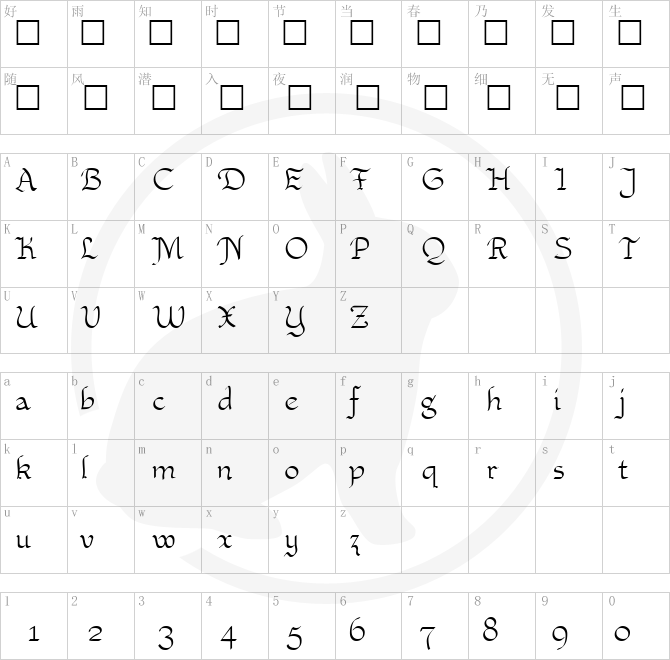
- Font Name:Xaltid
Xaltid-Regular.ttf is a very beautiful artistic font, Xaltid-Regular.ttf is widely used in the design and printing of various books and pictures,Xaltid-Regular.ttf has a strong visual impact,Xaltid-Regular.ttf is a commonly used font in newspapers, magazines and books, and is used in posters, e-commerce Poster design, store design, logo design, font design and other fields.Xaltid-Regular.